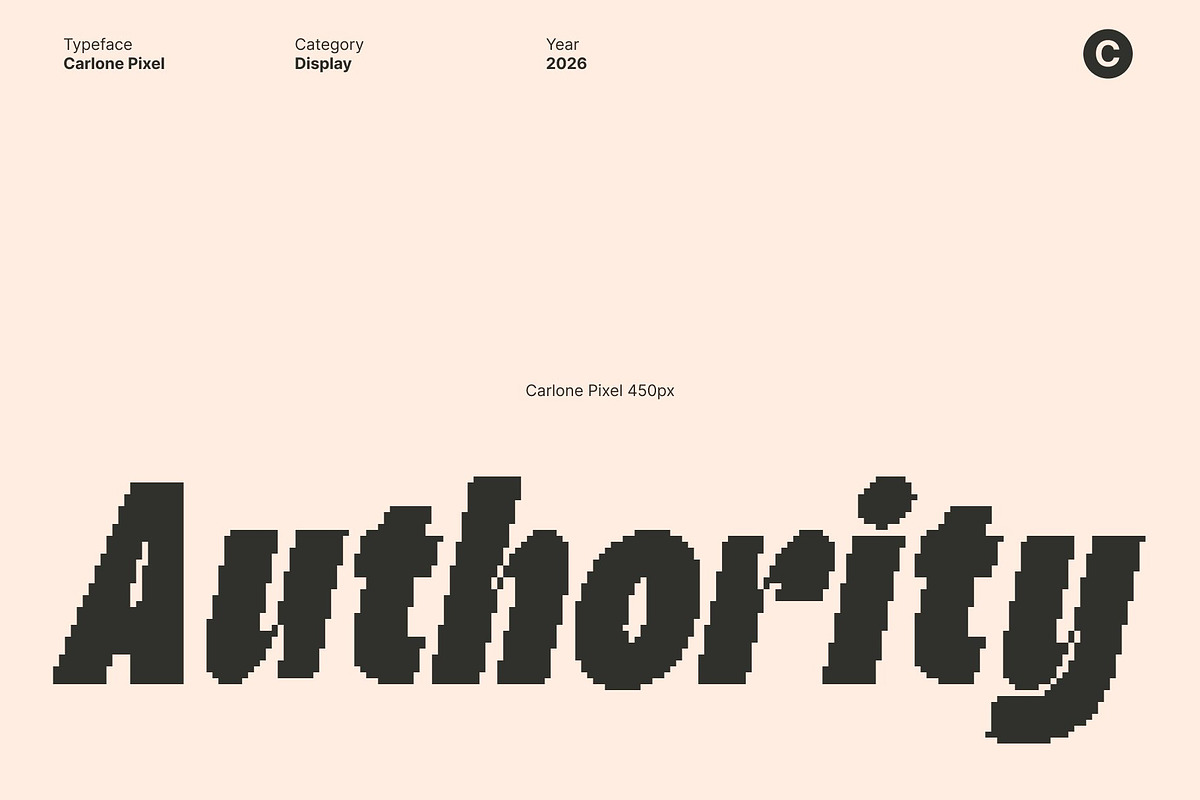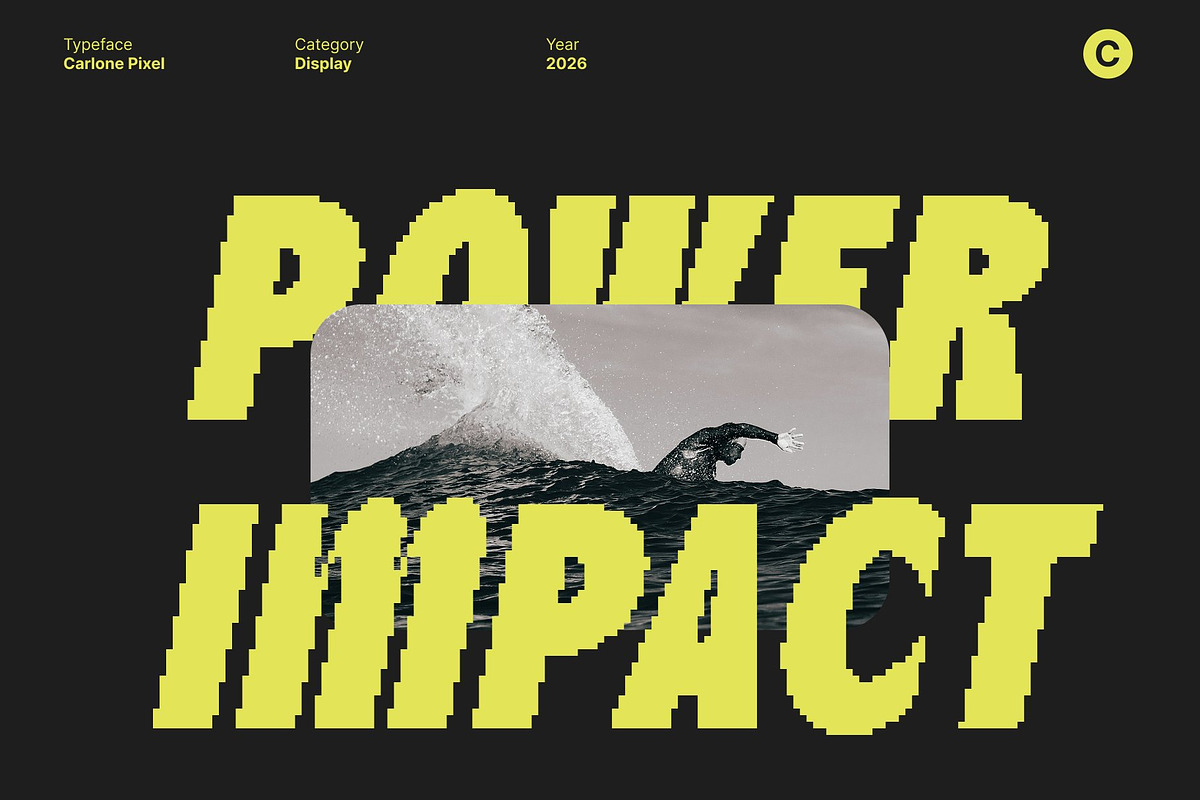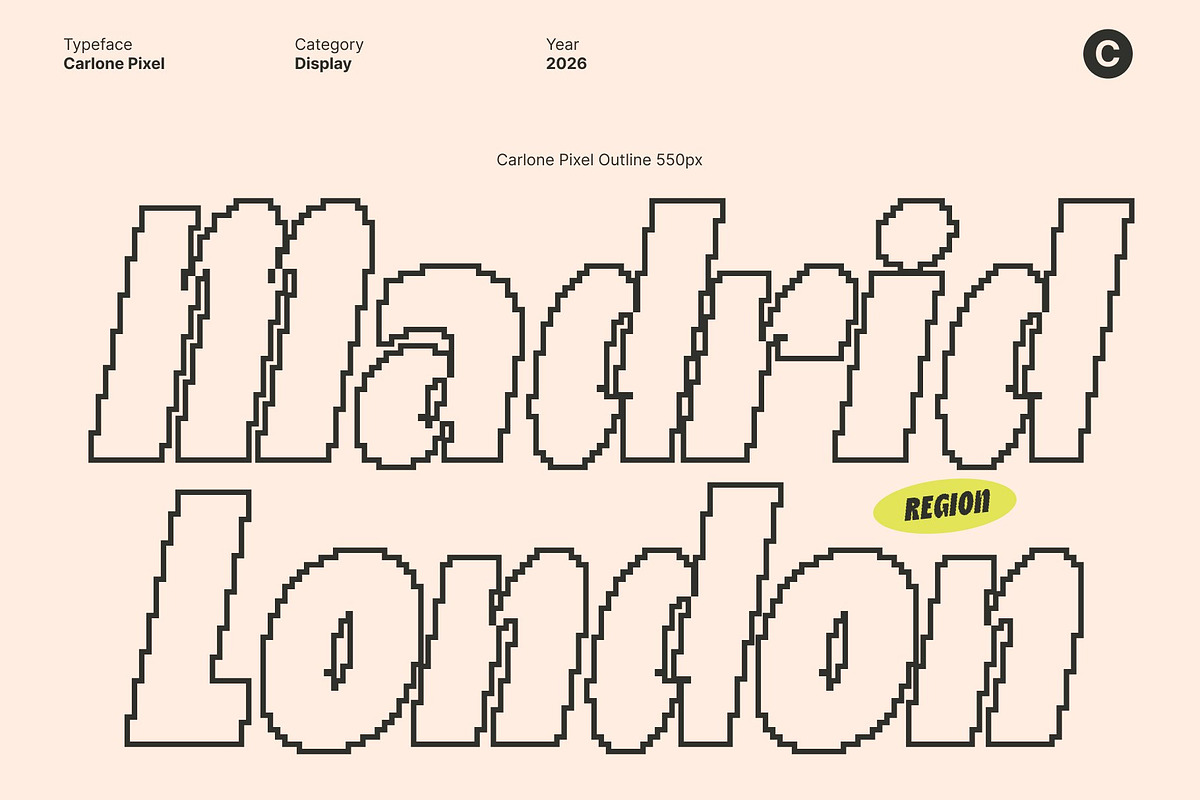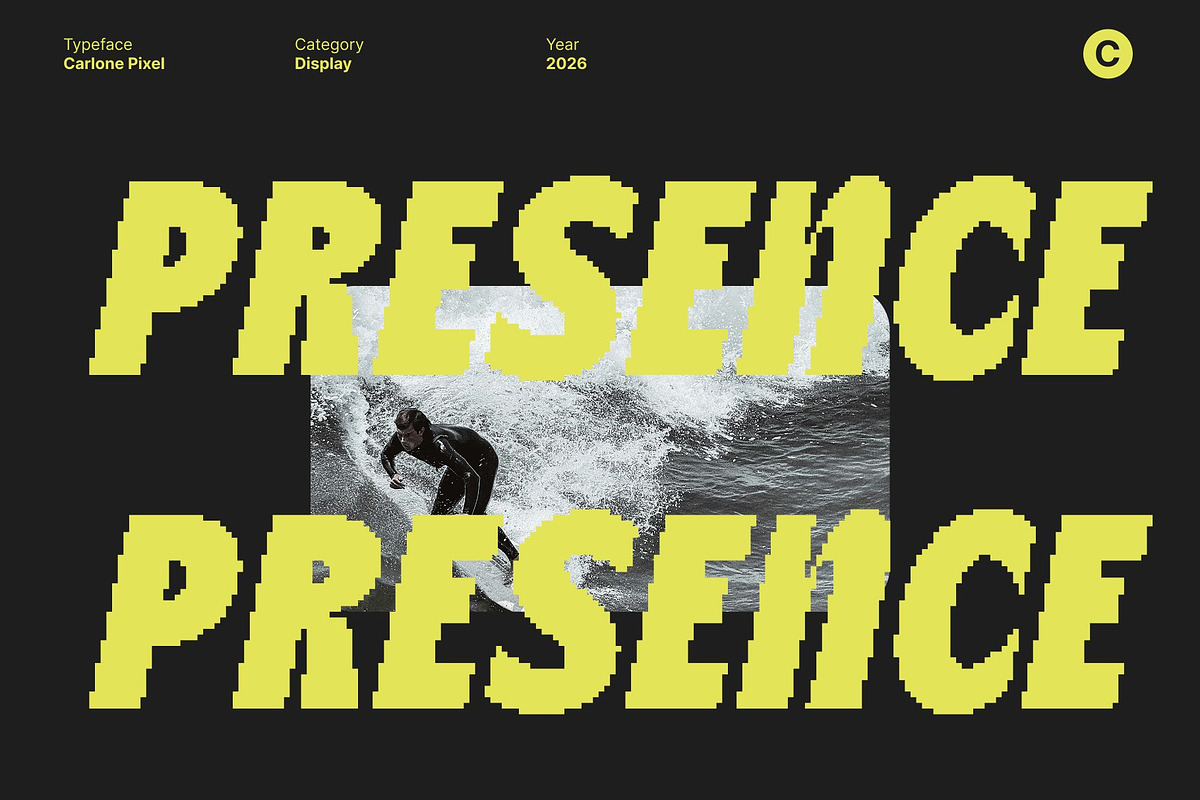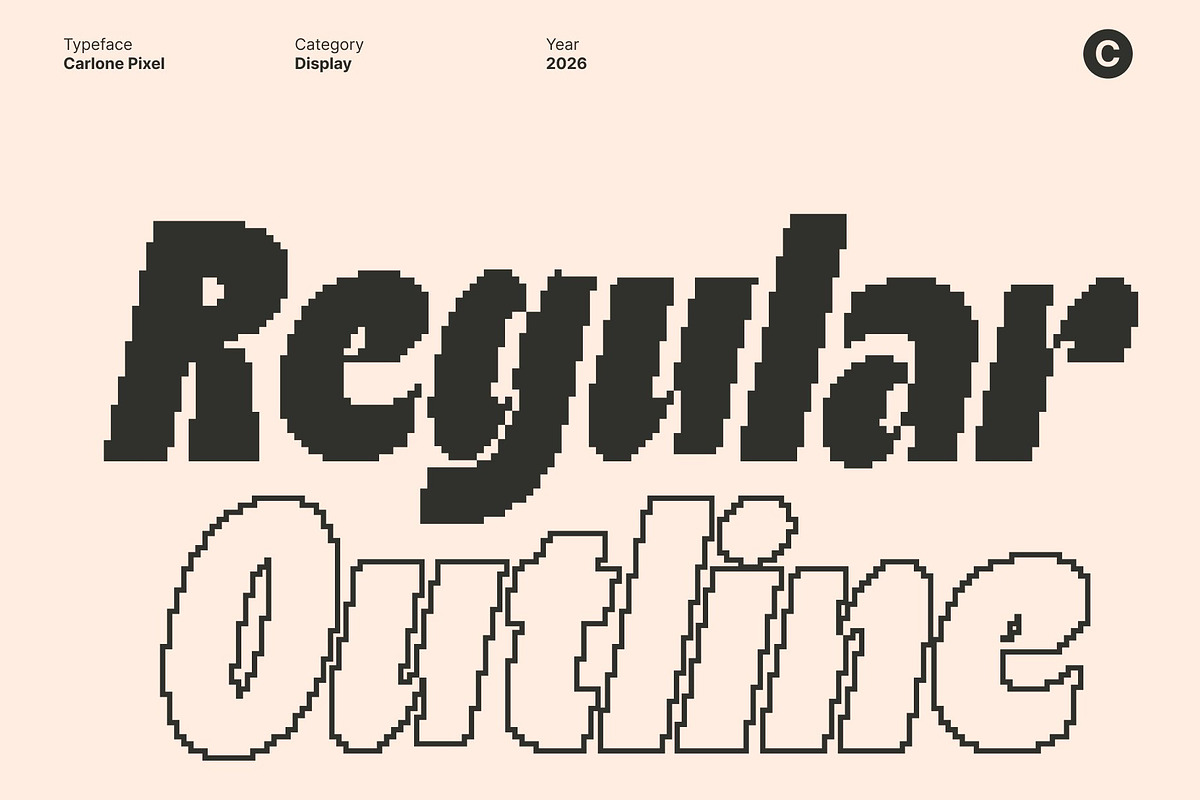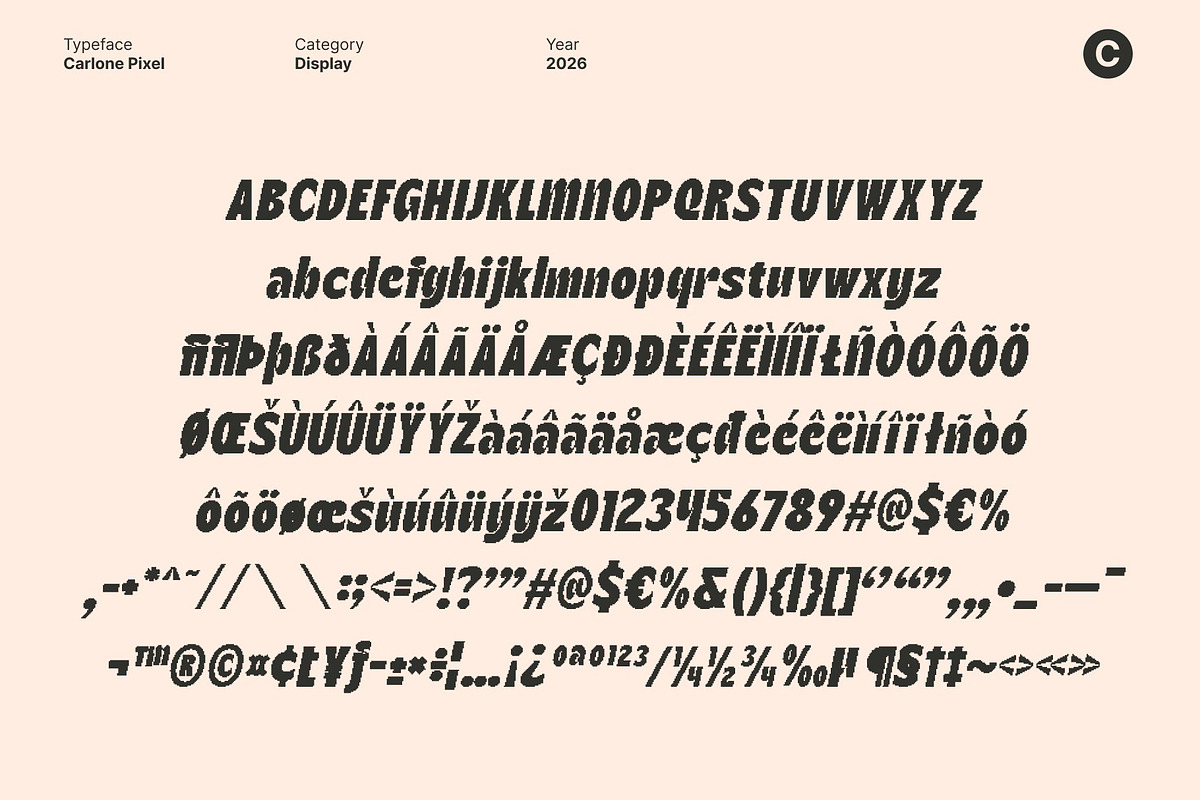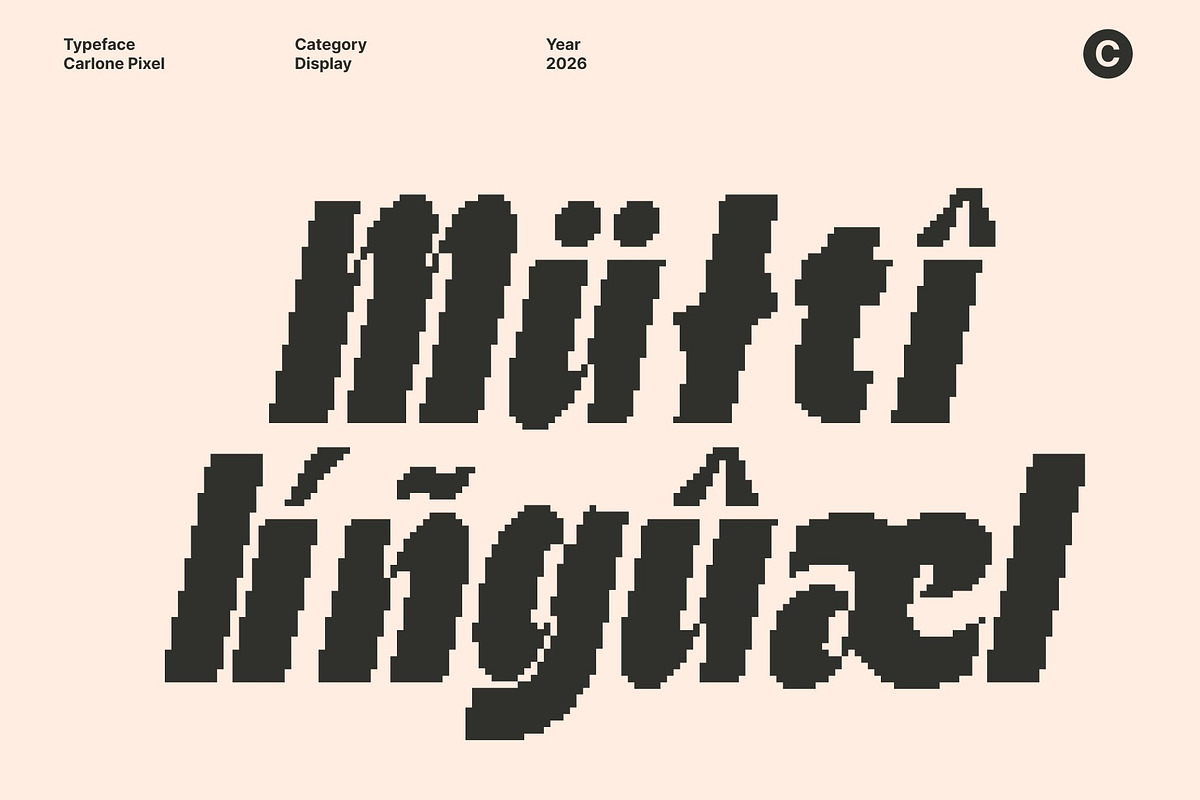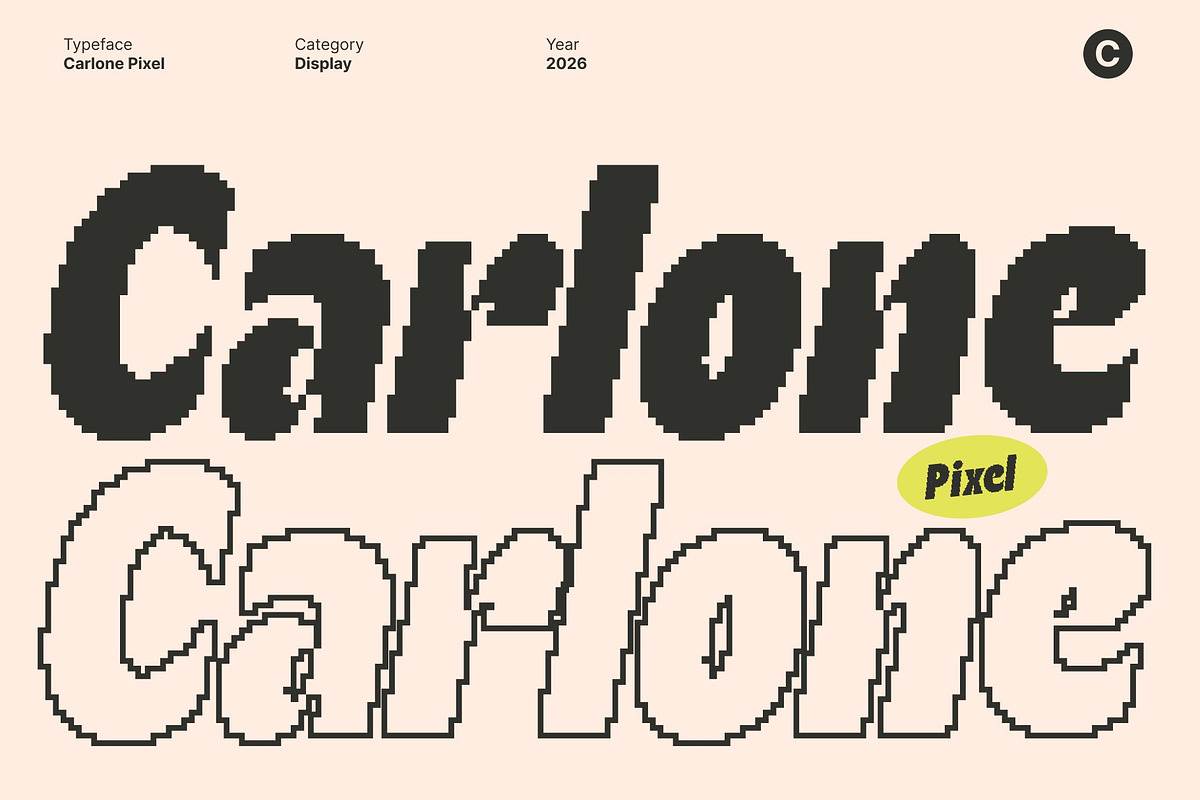
Carlone Pixel
Carlone Pixel – Bold and Prominent Sans Serif Typeface
Strength and Boldness with Pixel Precision This is a bold sans serif font defined by strong, thick strokes and subtle pixel detailing. Its modern structure conveys confidence and impact, making it perfect for designs that demand attention. The pixel enhancements add a contemporary digital touch while maintaining the font’s clean and decisive character.
Perfect for Titles and Headlines Designed to emphasize key messages, this font excels in posters, banners, headlines, and branding materials. Its bold weight and pixel-enhanced forms ensure that every word stands out, delivering maximum visual prominence and helping your designs make a memorable impression.
Clear, Direct, and Readable Free from decorative elements, this font focuses on clarity and legibility. Its strong sans serif construction allows the font to capture attention instantly while remaining easy to read across digital and print applications, making it a versatile choice for a wide range of projects.
Versatile for Modern Design This font adapts seamlessly to diverse creative contexts, from editorial layouts to corporate branding and advertising. Combining bold modernity with pixel-inspired precision, it ensures your designs communicate authority, professionalism, and contemporary style, elevating any project with impactful typography.